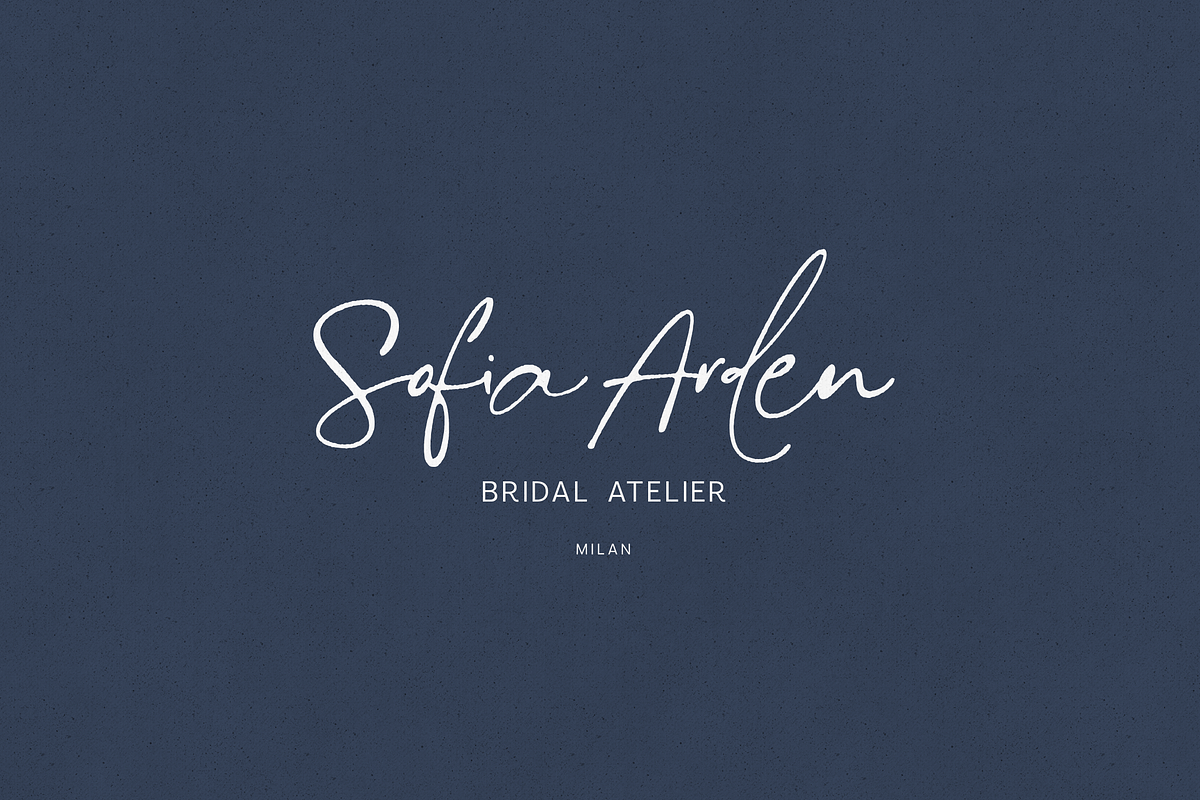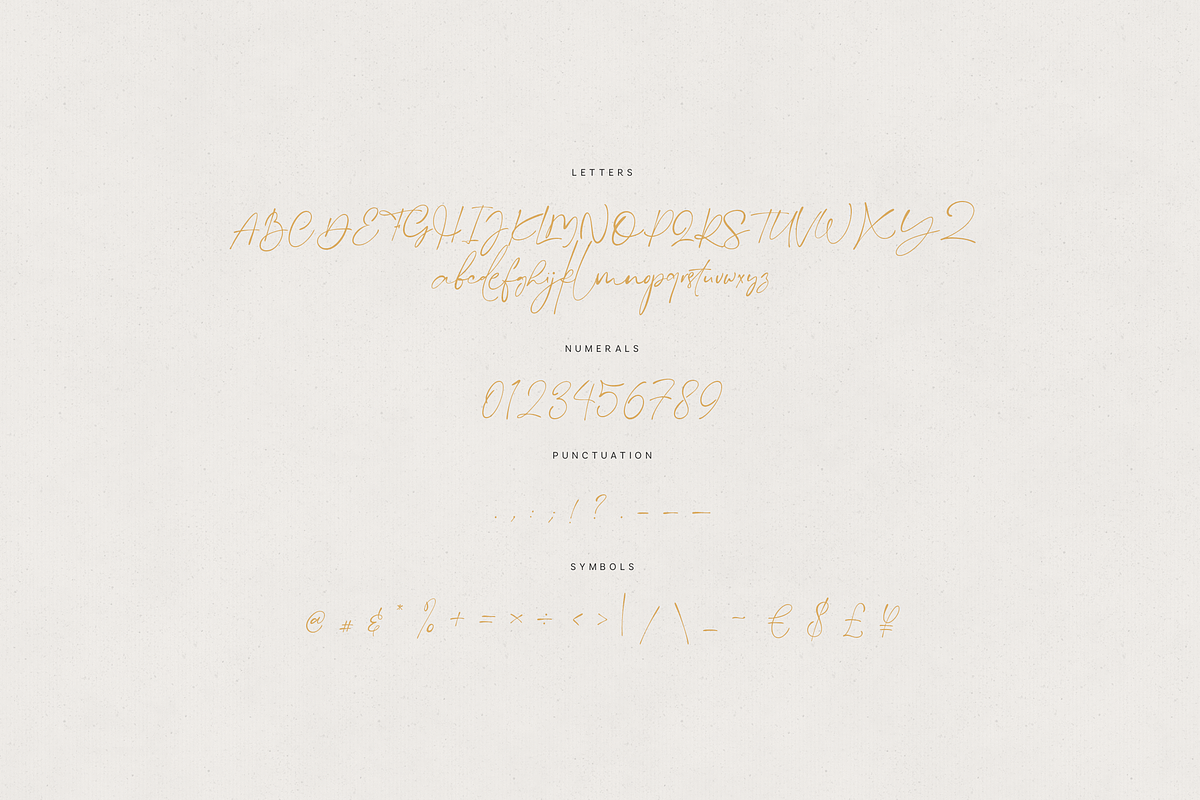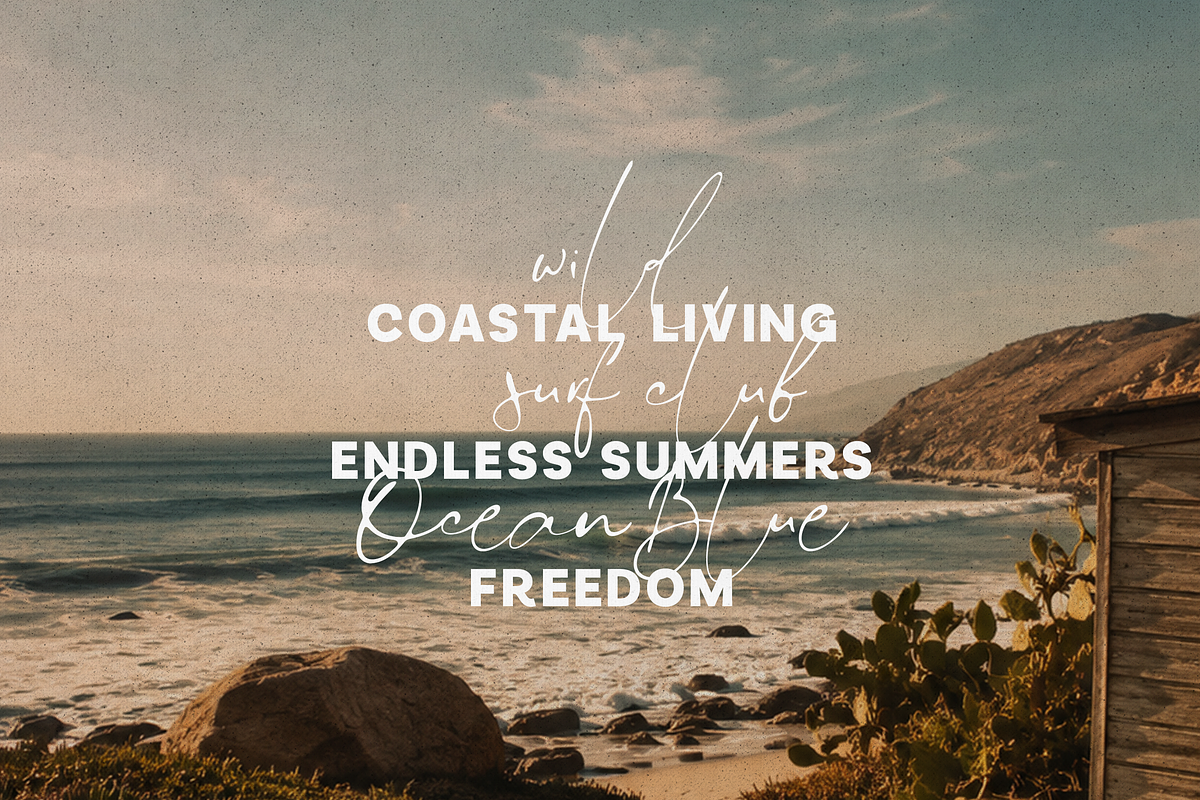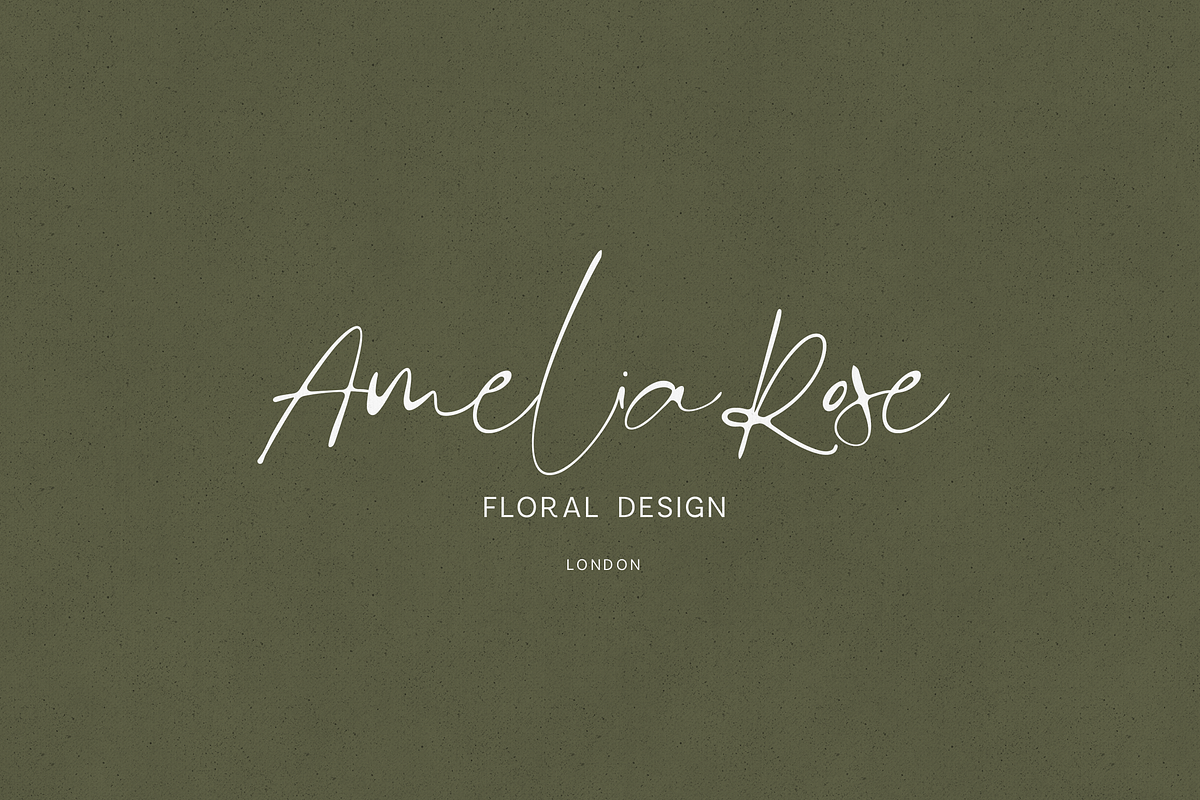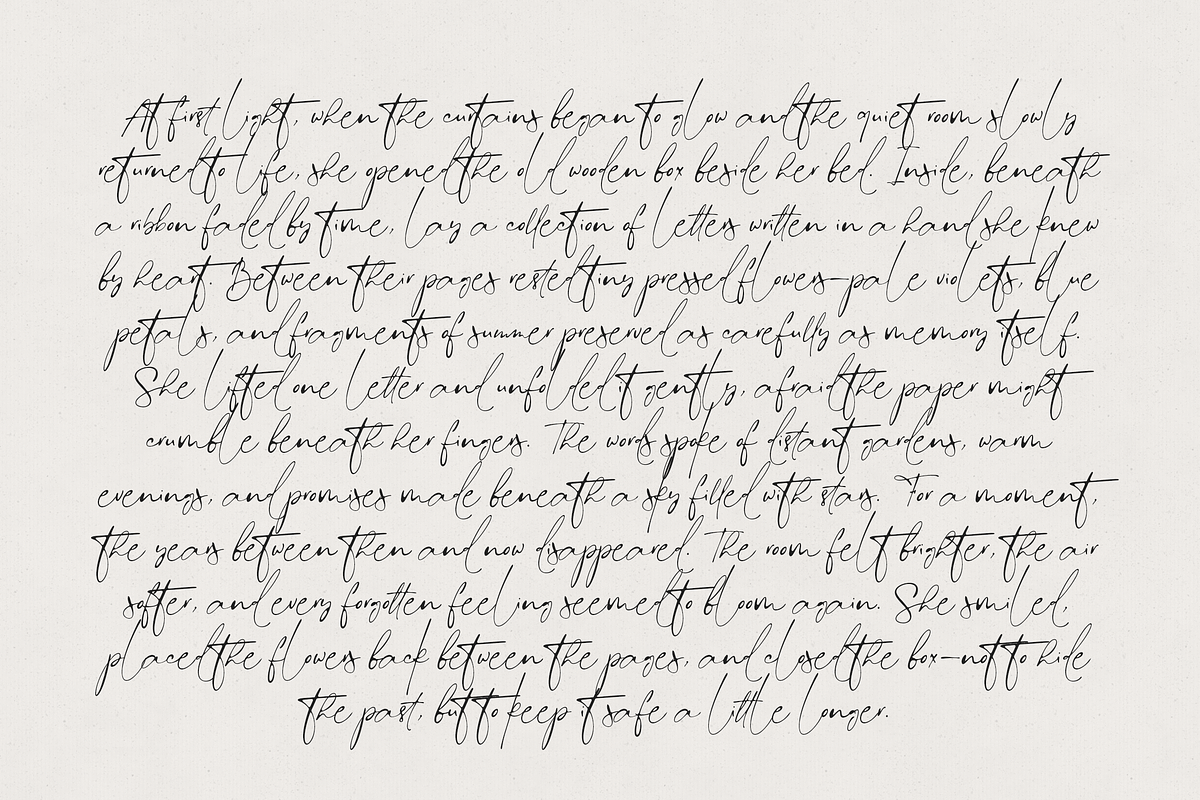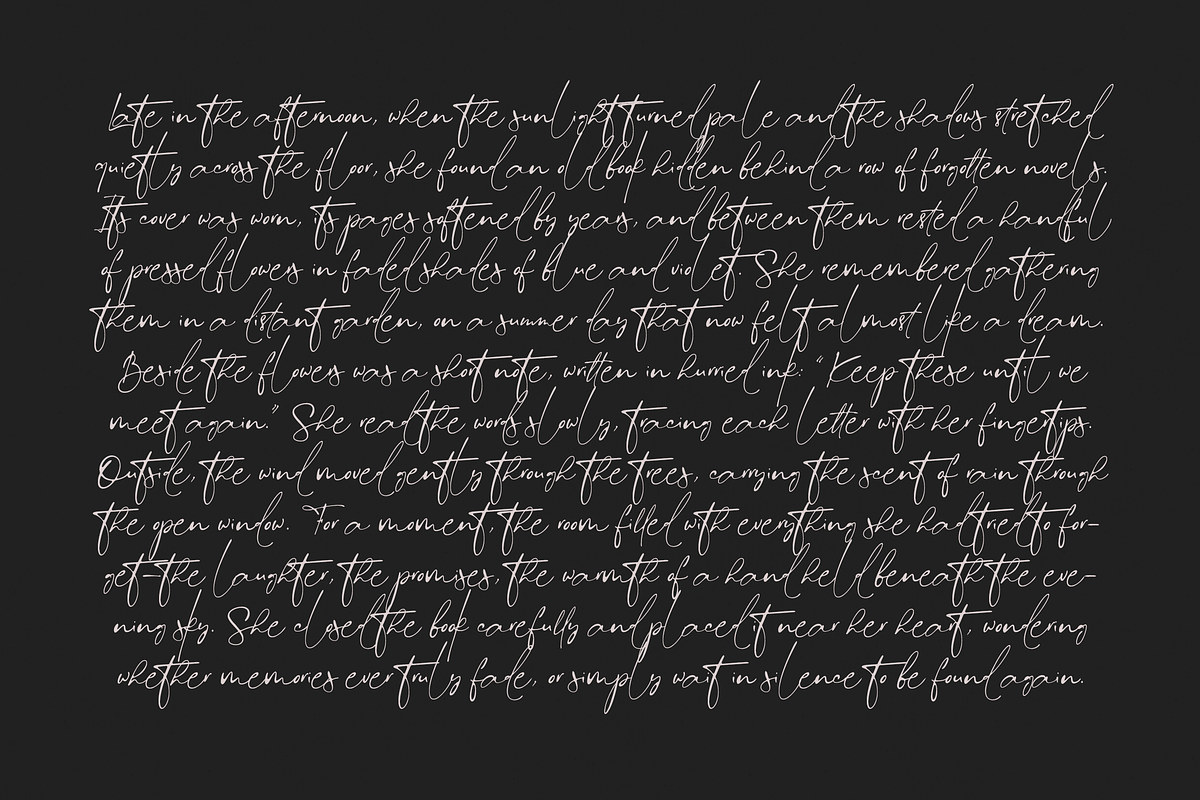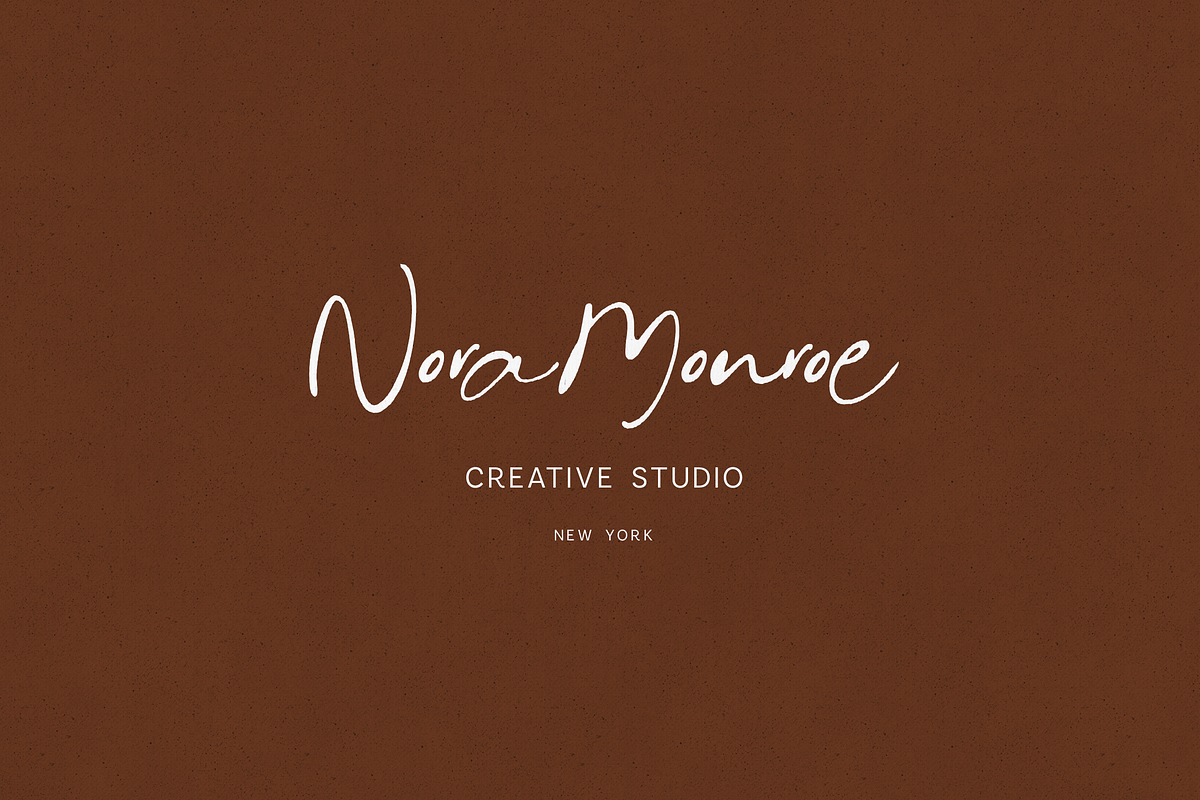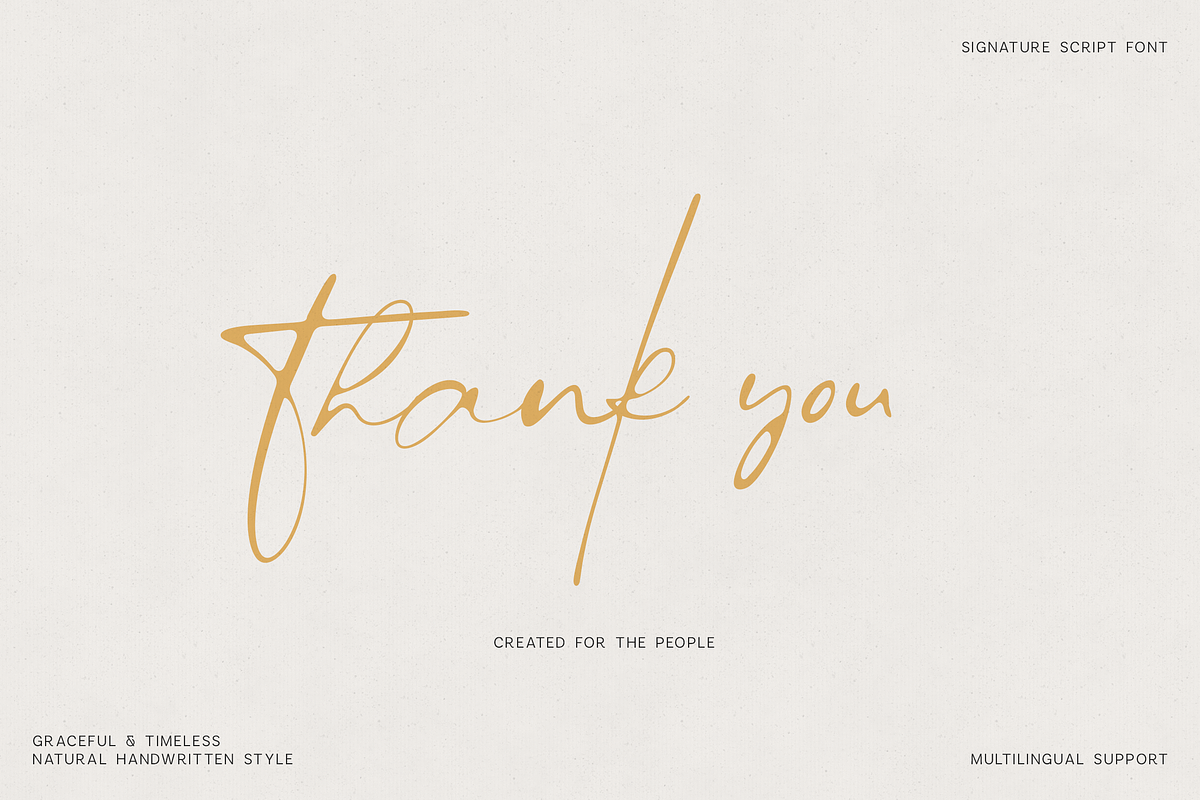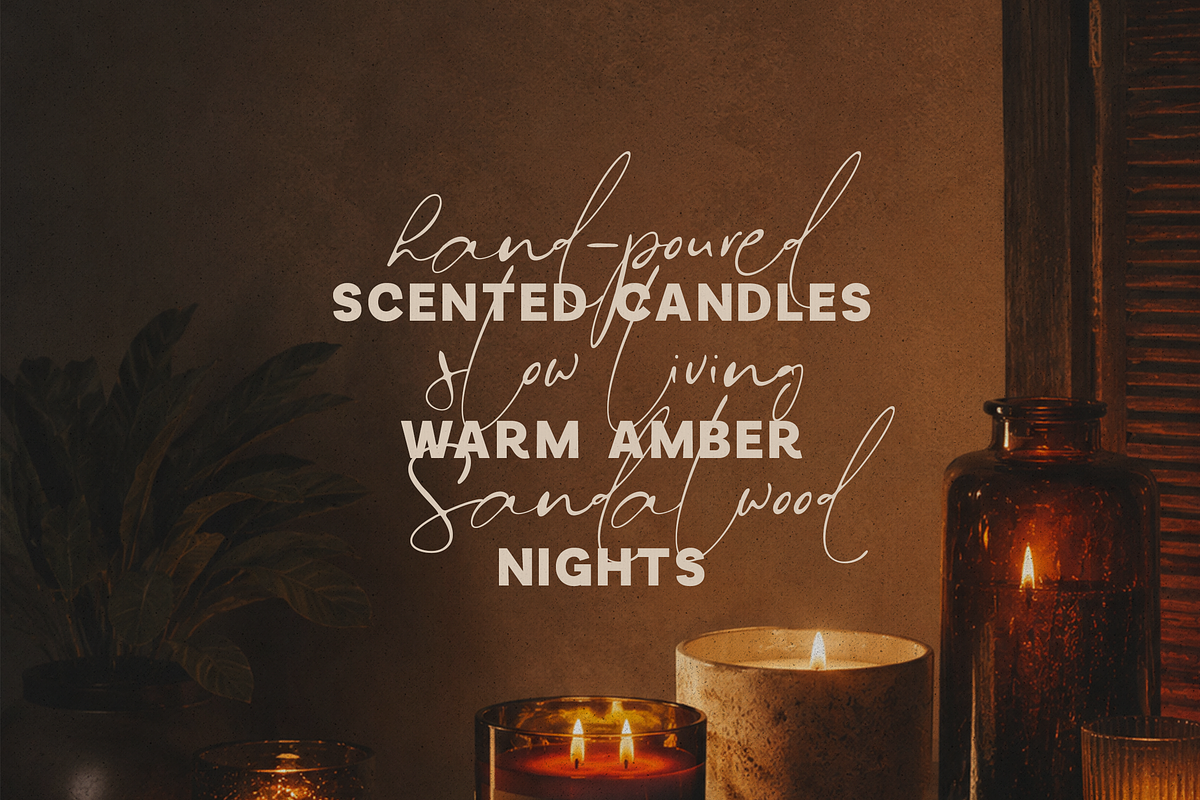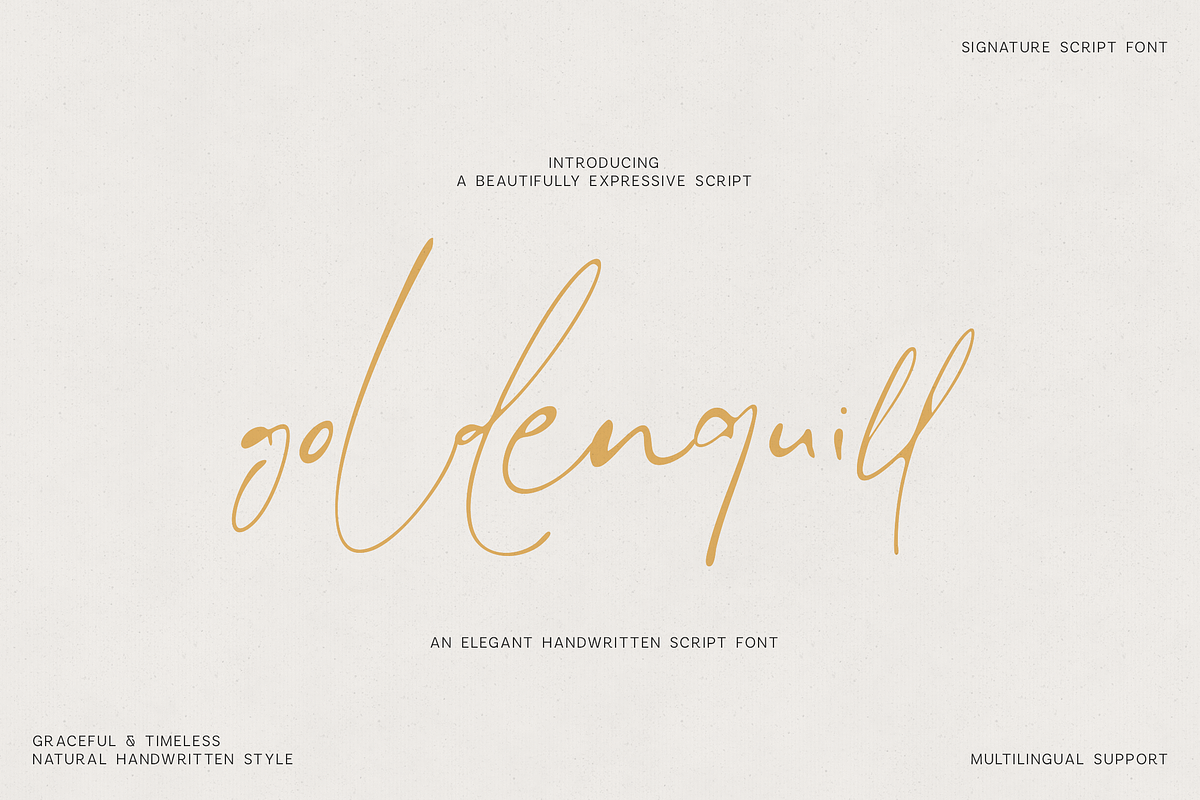
Goldenquill Elegant Signature Script
Goldenquill – Elegant Signature Script Font
Goldenquill is a graceful handwritten script font created for designs that need a natural, personal, and sophisticated touch. Its delicate strokes, expressive letterforms, and flowing rhythm recreate the beauty of authentic handwriting while remaining stylish and versatile.
The font comes in three distinctive styles - Regular, Round, and Rough - giving you the freedom to create everything from clean, elegant branding to softer or more organic handwritten designs. Goldenquill works beautifully for signature logos, wedding stationery, luxury packaging, floral branding, fashion labels, social media graphics, editorial layouts, restaurant identities, candle packaging, and lifestyle projects.
With uppercase and lowercase letters, numerals, punctuation, symbols, and multilingual support, Goldenquill makes it easy to create polished typography for both digital and printed designs.
Signature logos, wedding invitations, bridal branding, fashion and beauty brands, floral studios, product packaging, restaurant menus, candle labels, photography watermarks, social media posts, quotes, magazines, and elegant editorial designs.
Goldenquill Regular
Goldenquill Round
Goldenquill Rough
Uppercase and lowercase letters
Numerals and punctuation
Symbols
Multilingual character support
Bring warmth, movement, and effortless elegance to your next project with Goldenquill—a timeless signature script designed to make every word feel beautifully handwritten.